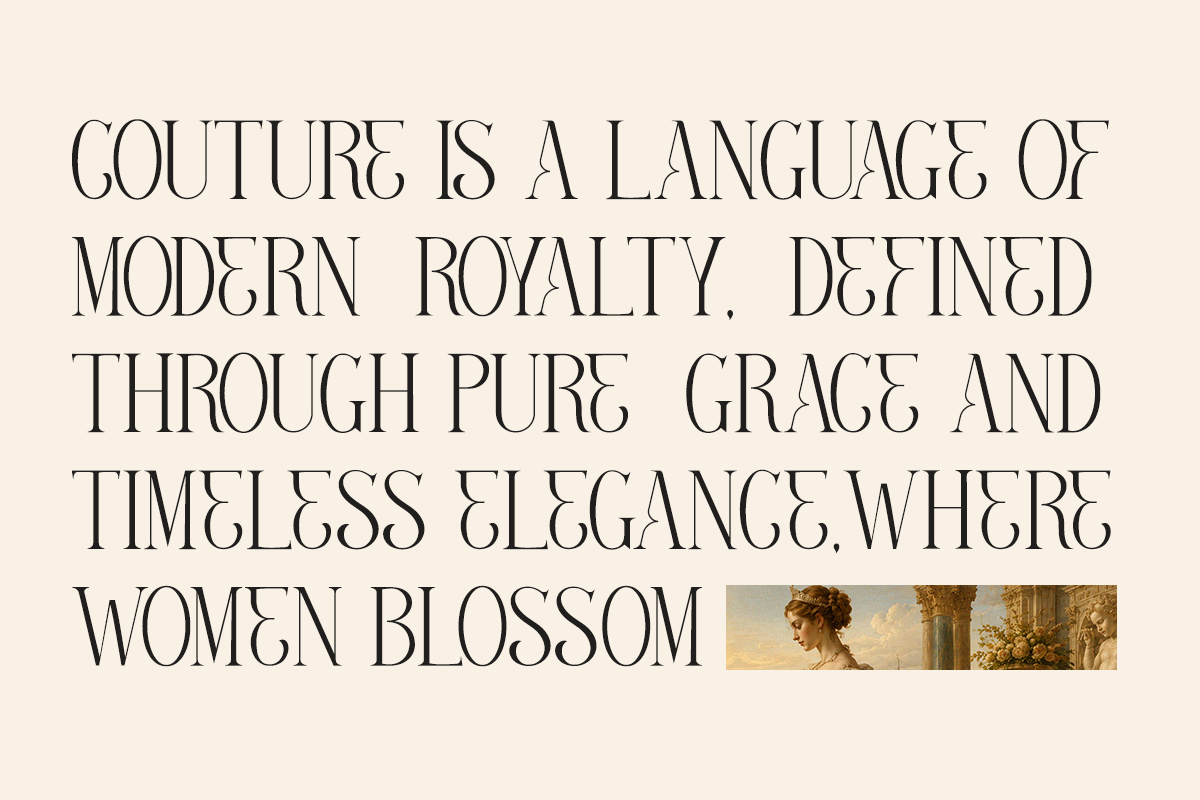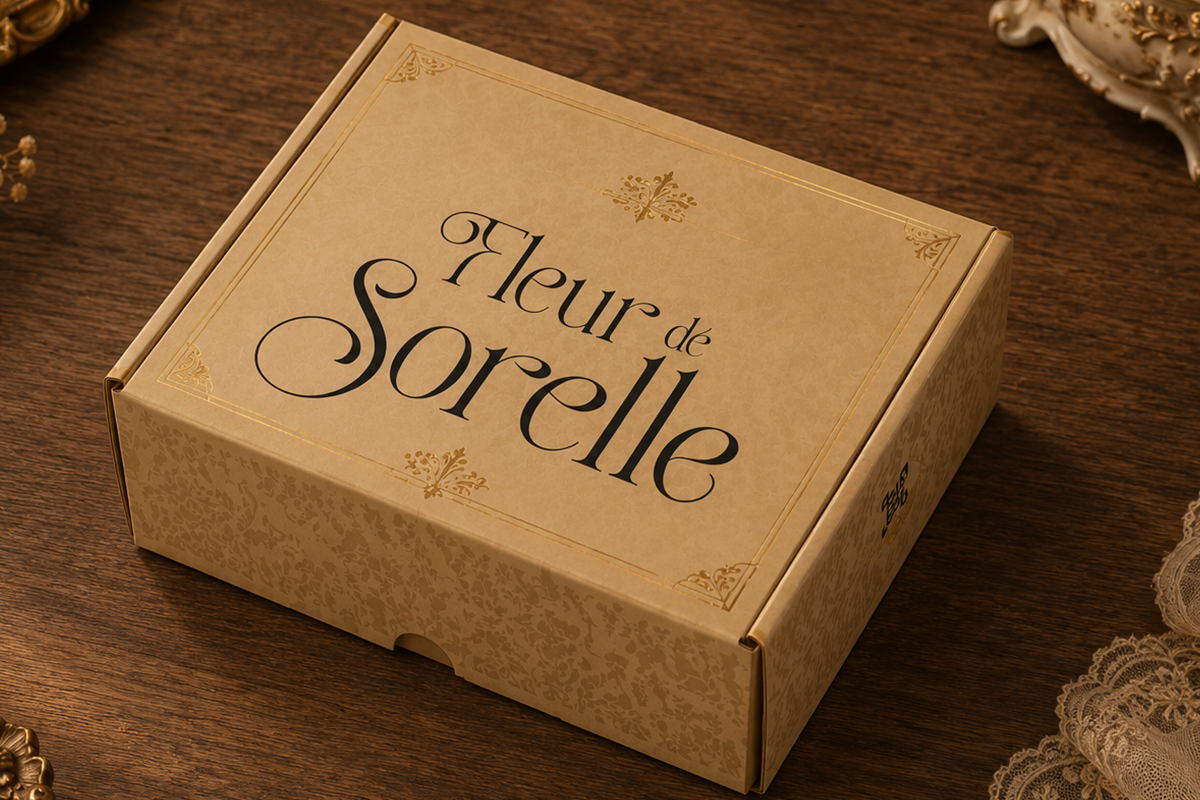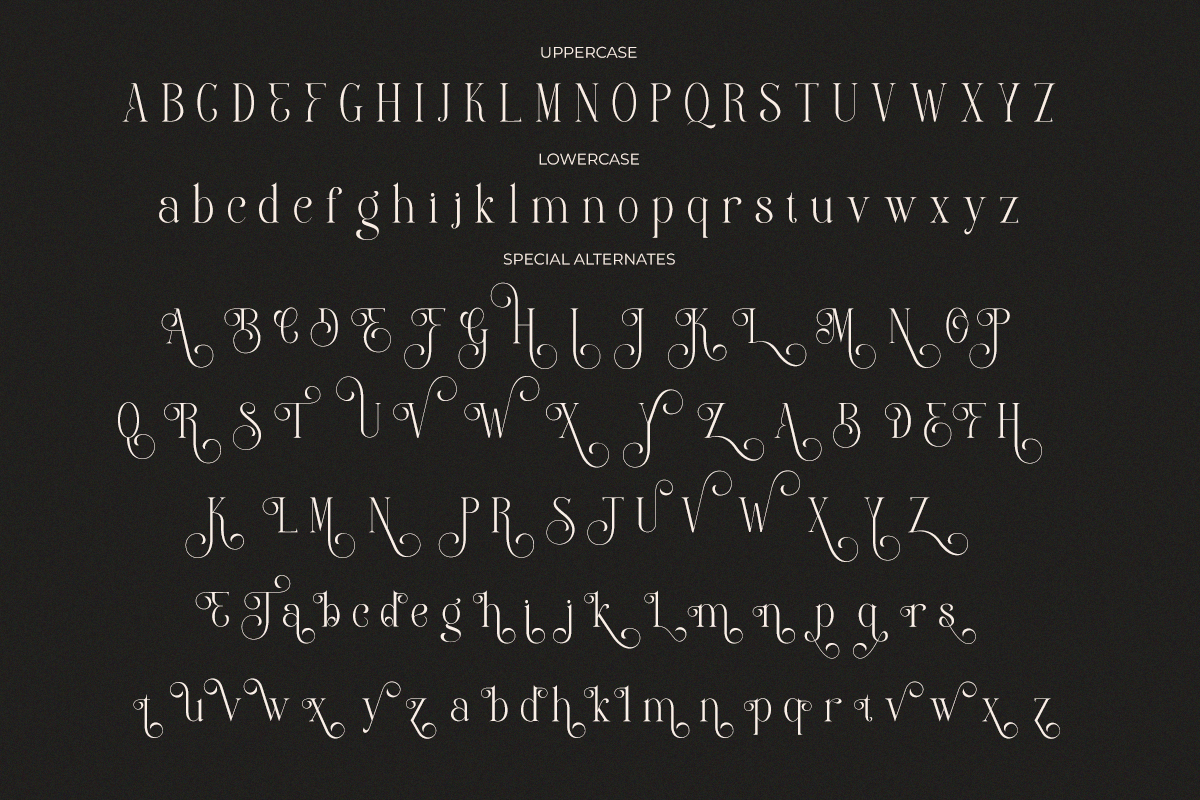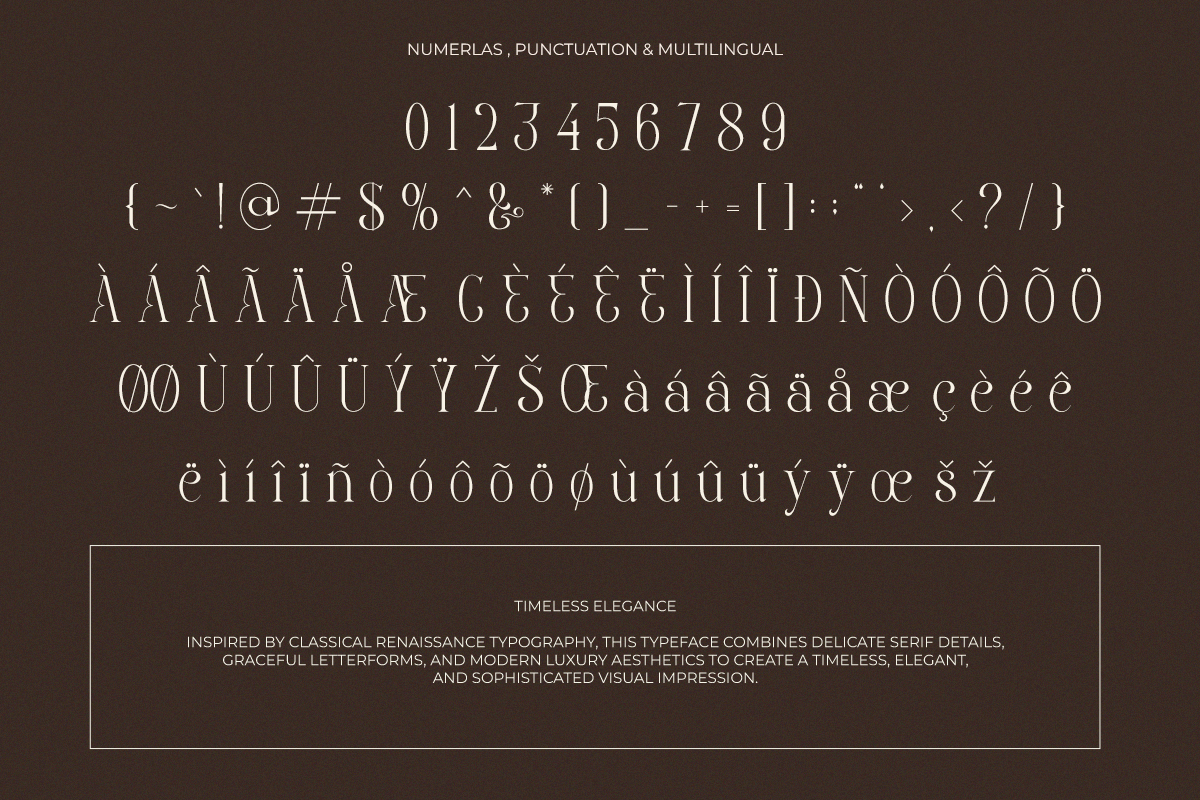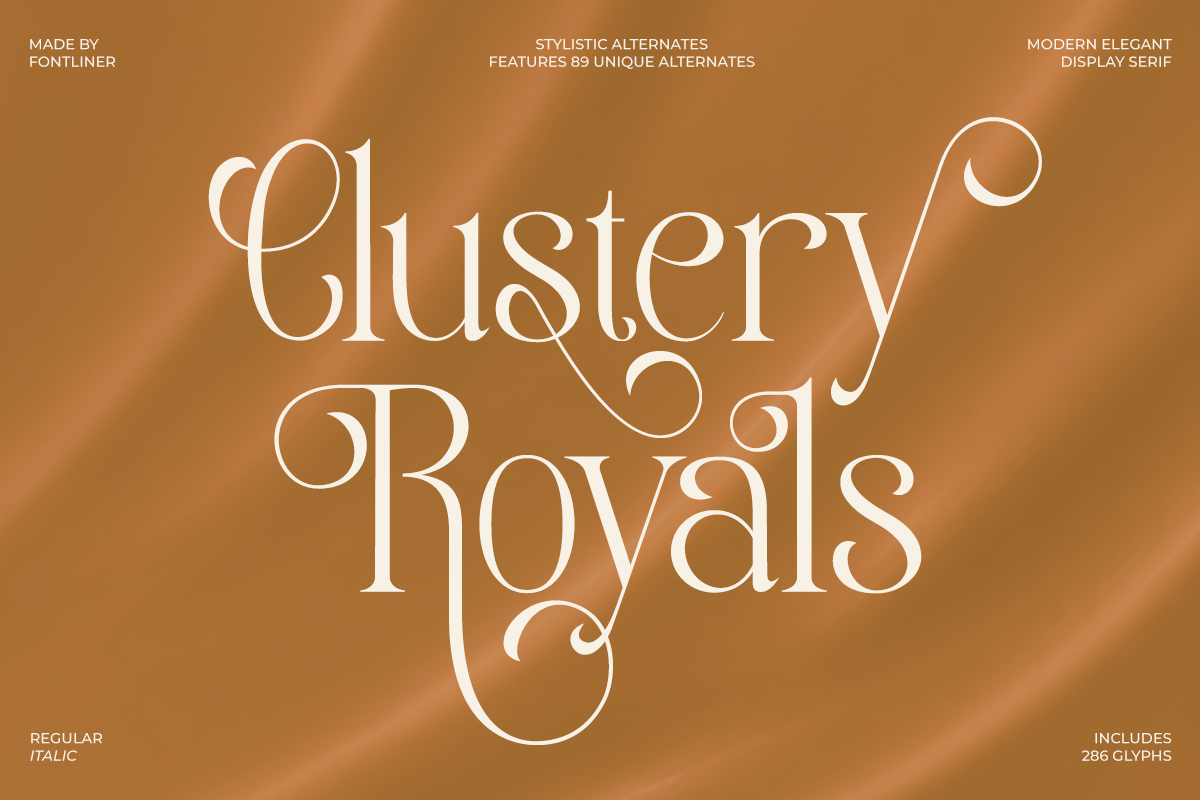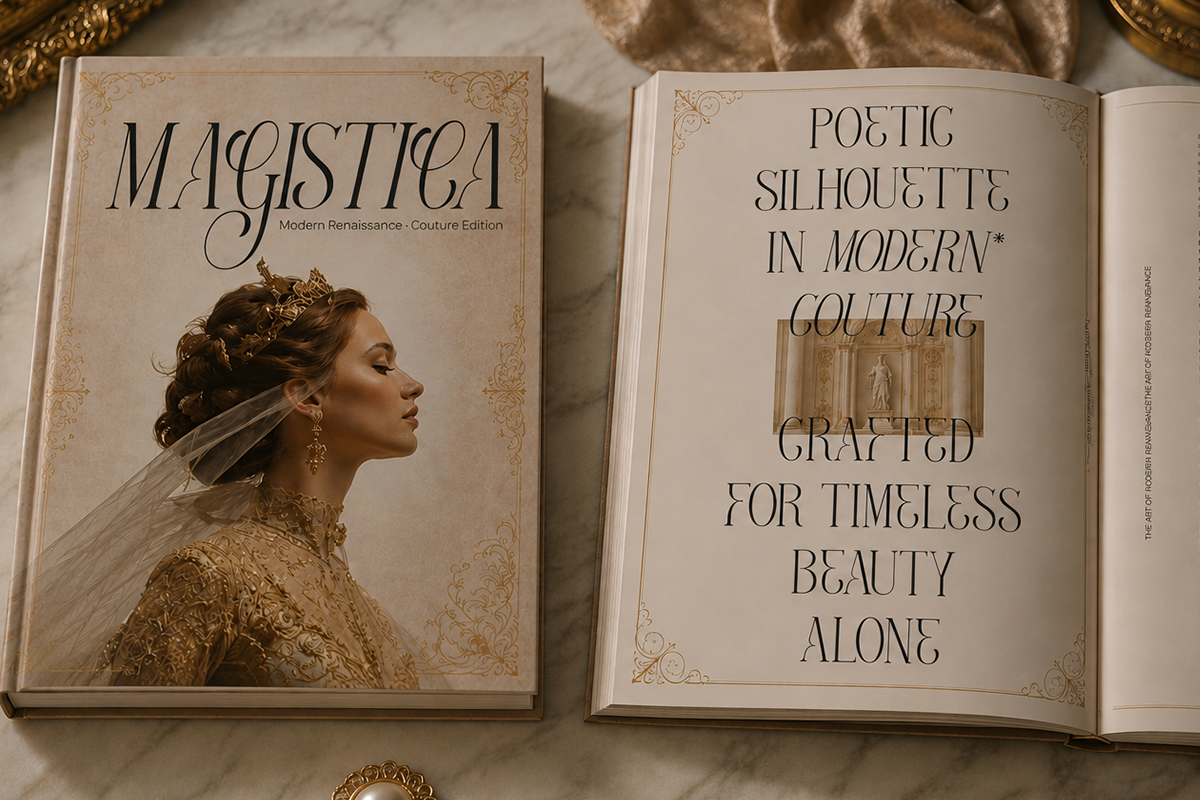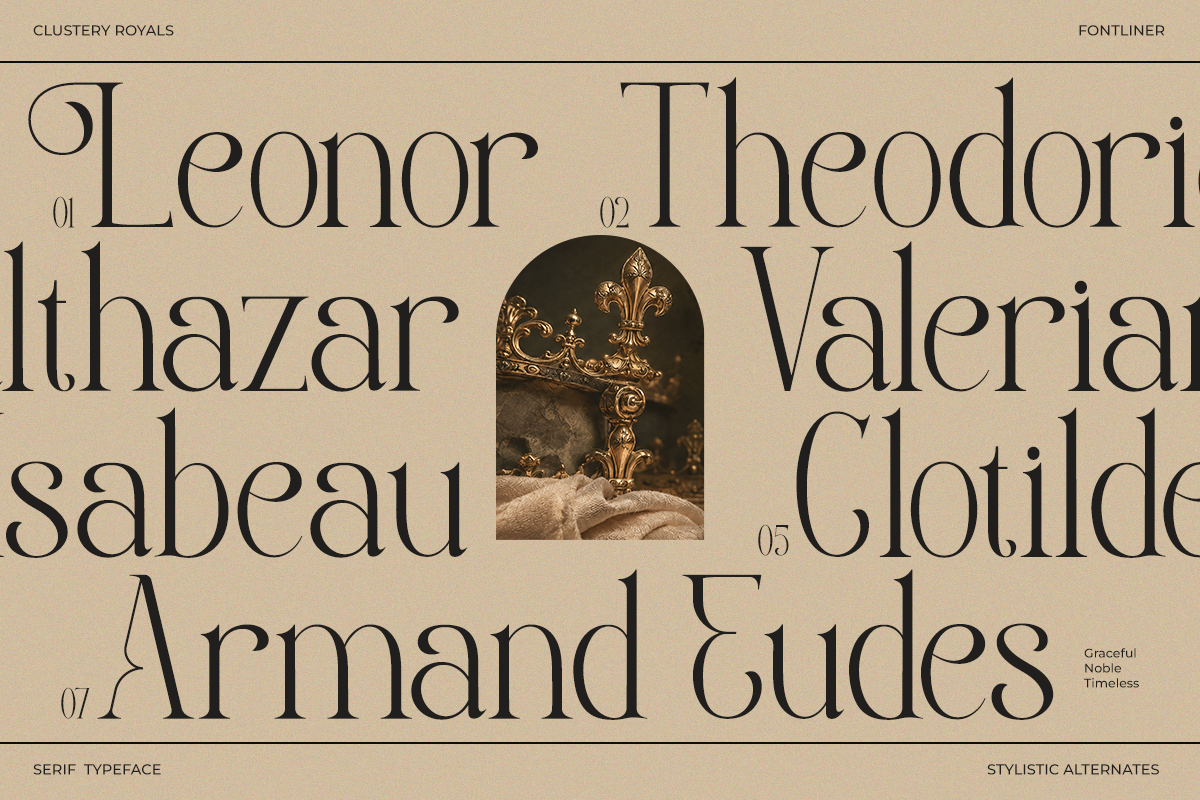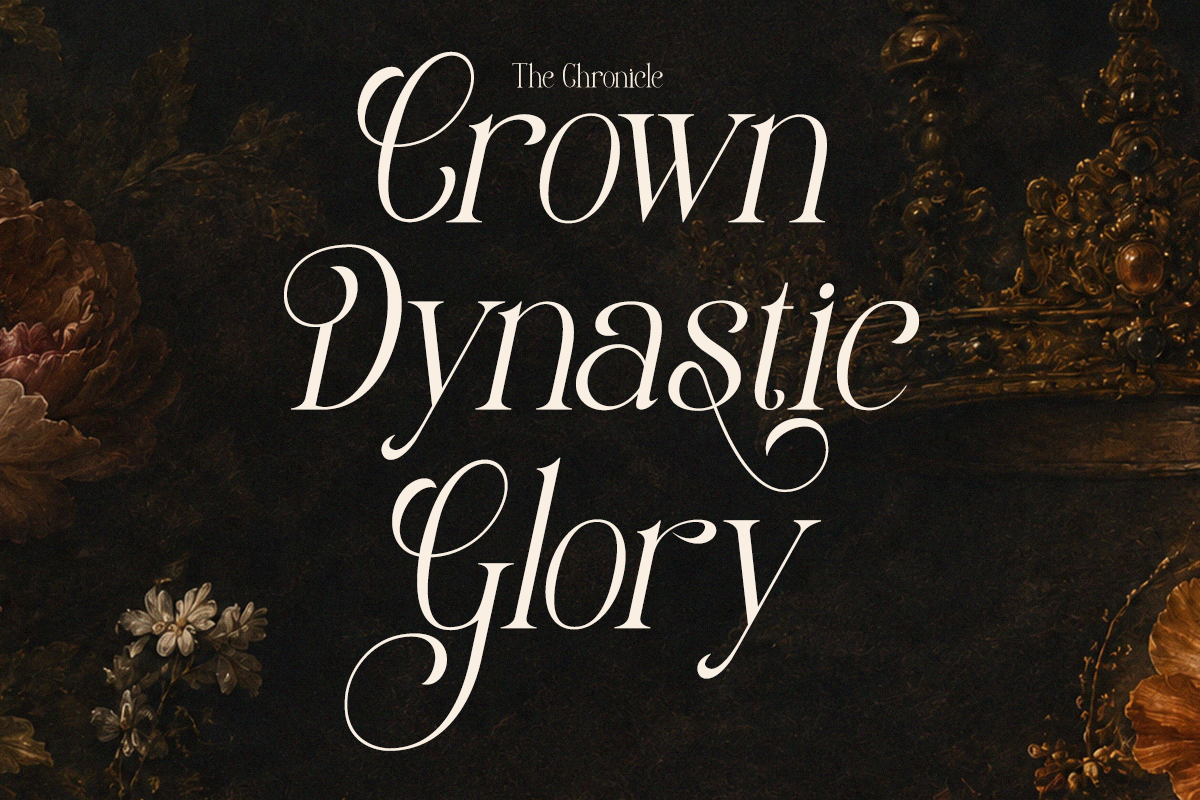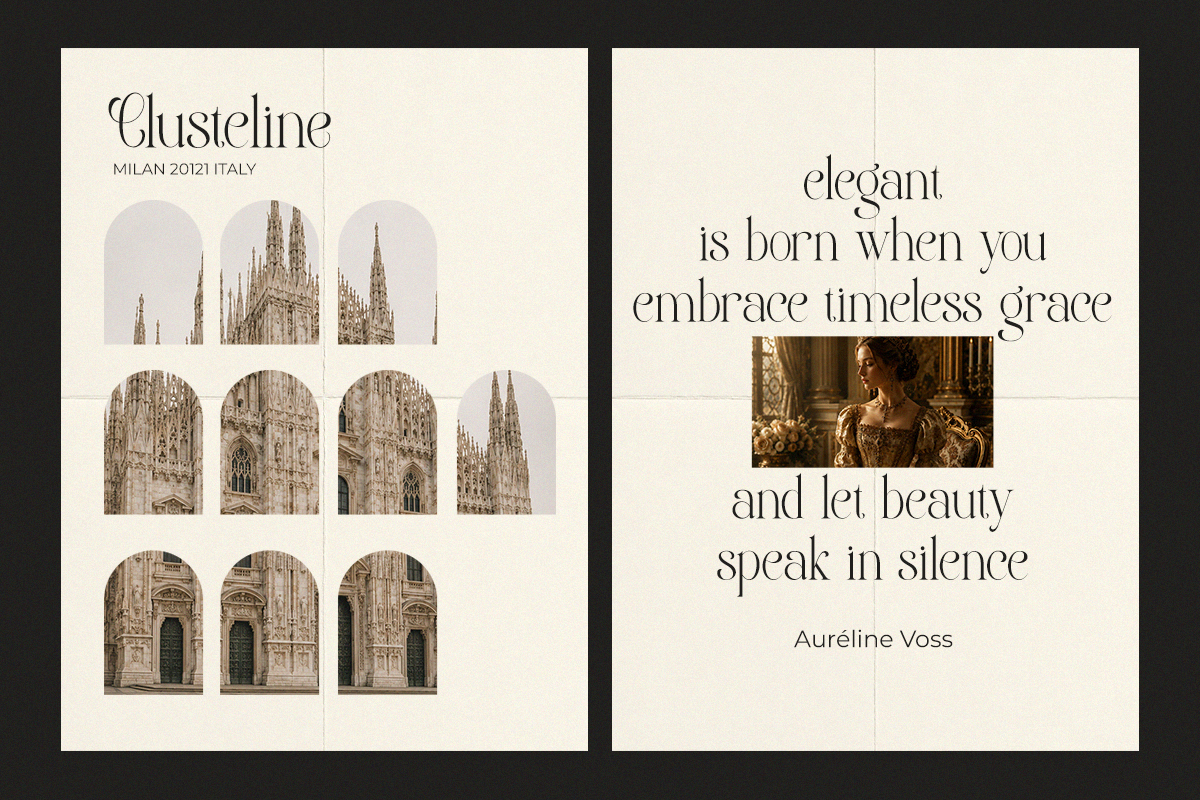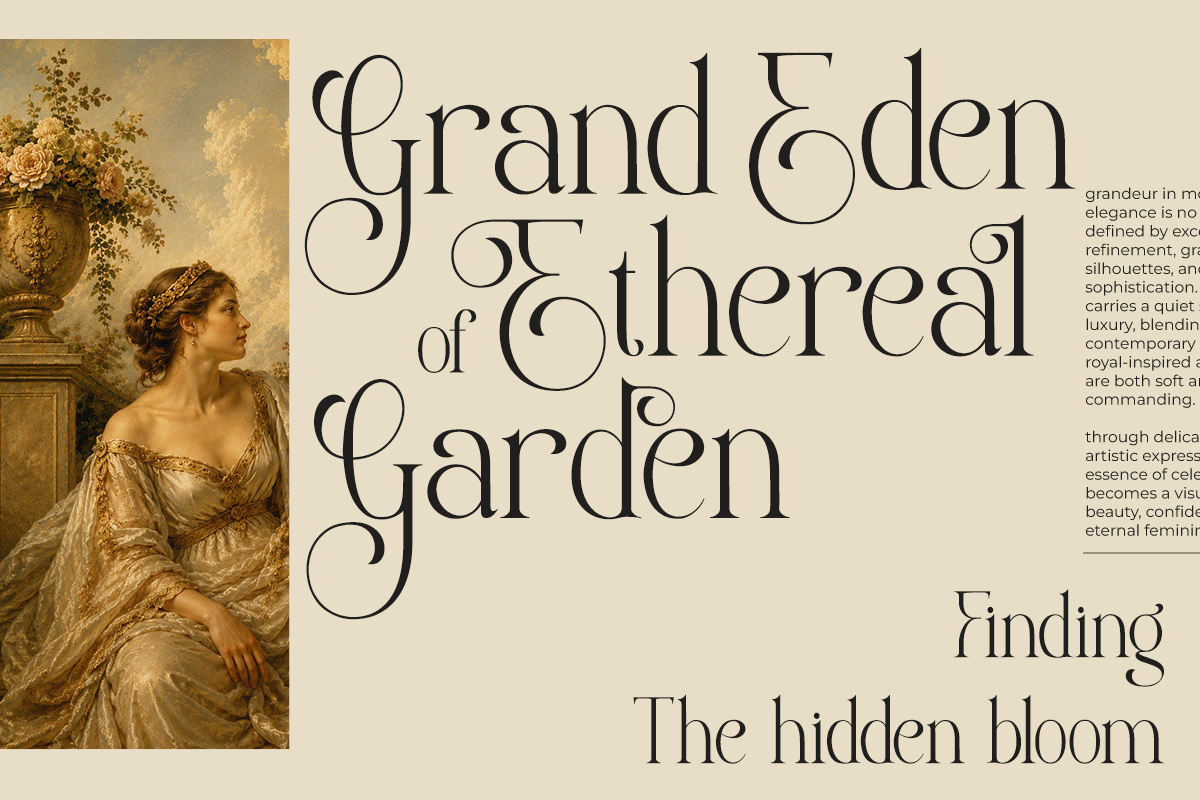
Elegant Serif Font - Clustery Royals
Clustery Royals is a modern elegant display serif font crafted for creators who want sophistication, luxury, and timeless visual impact. Featuring dramatic high-contrast letterforms, refined curves, and stunning stylistic alternates, this typeface instantly elevates branding, editorial layouts, premium packaging, and logo design. Its graceful swashes and artistic serif details make every word feel exclusive and memorable.
Designed for luxury-focused creative projects, Clustery Royals works beautifully in fashion branding, wedding invitations, beauty campaigns, magazine headlines, boutique logos, product packaging, and upscale social media content. Whether you're building a premium brand identity or creating visually striking typography artwork, this font delivers elegance with a bold modern character.
With 89 unique stylistic alternates and 286 glyphs, Clustery Royals gives designers exceptional flexibility to create custom letter combinations and distinctive typography compositions. Perfect for high-end branding projects where uniqueness and visual prestige matter.
Regular and Italic Style
Number and Punctuation